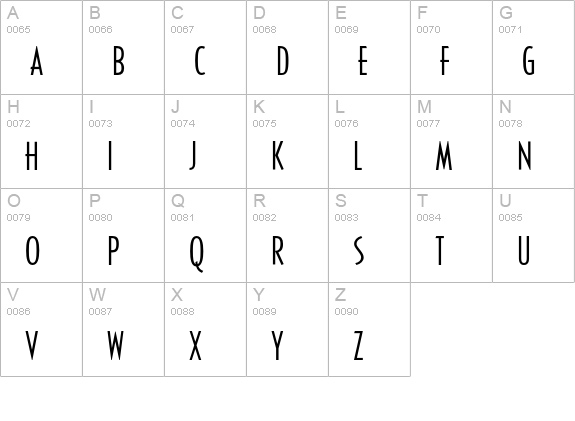
OPTICivet-LiteCondensed is a sleek and modern sans-serif font that exudes elegance and sophistication. Its condensed design is perfect for creating eye-catching headlines, titles, and logos that command attention. With its clean lines and geometric shapes, OPTICivet-LiteCondensed brings a sense of professionalism to any design project. What makes OPTICivet-LiteCondensed even more appealing is that it is available for free download exclusively at FontsMarket.com. This means that you can elevate your designs without breaking the bank, making it a valuable addition to any designer's toolkit. Whether you're working on a branding project, website design, or print materials, OPTICivet-LiteCondensed is sure to make a lasting impression. Download it today and see the difference it can make in your creative endeavors.